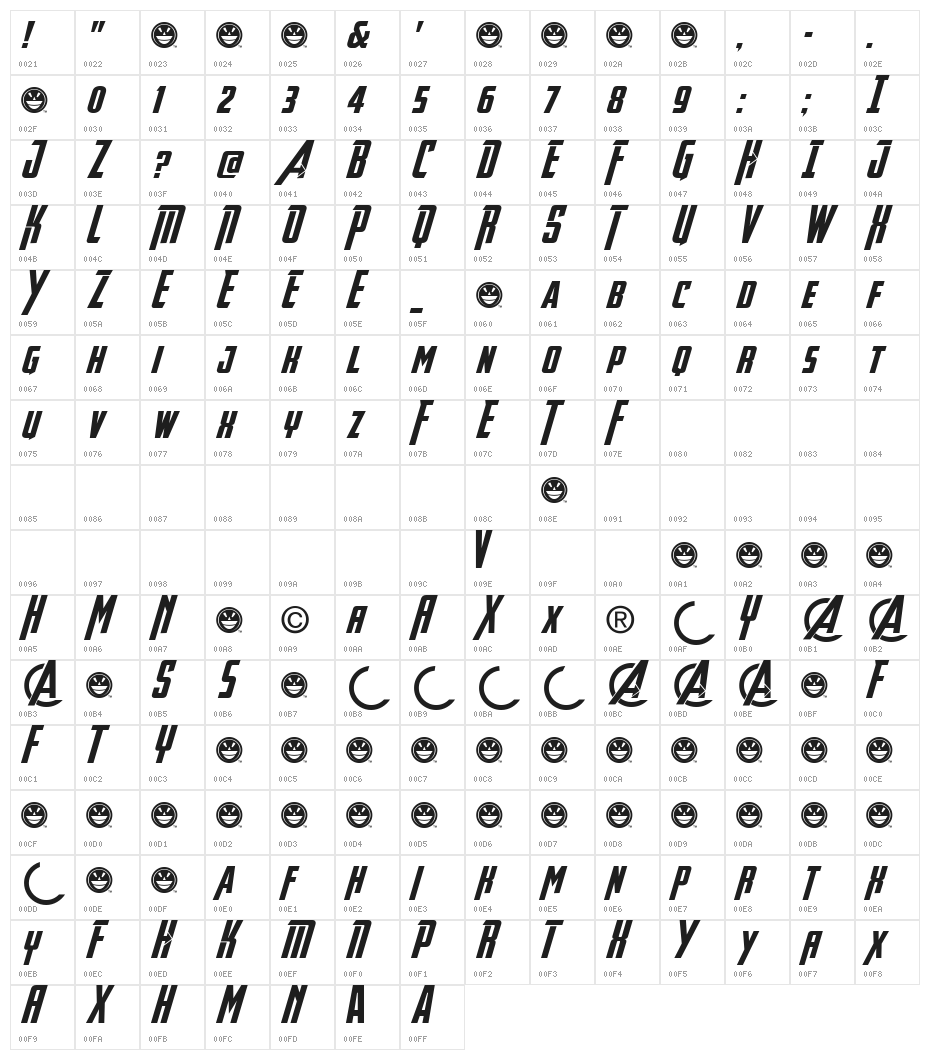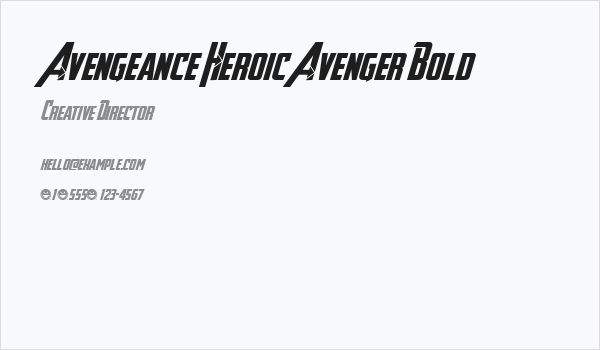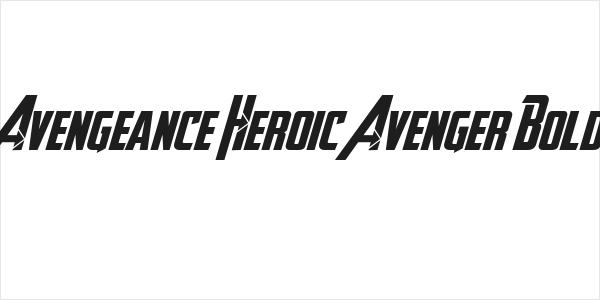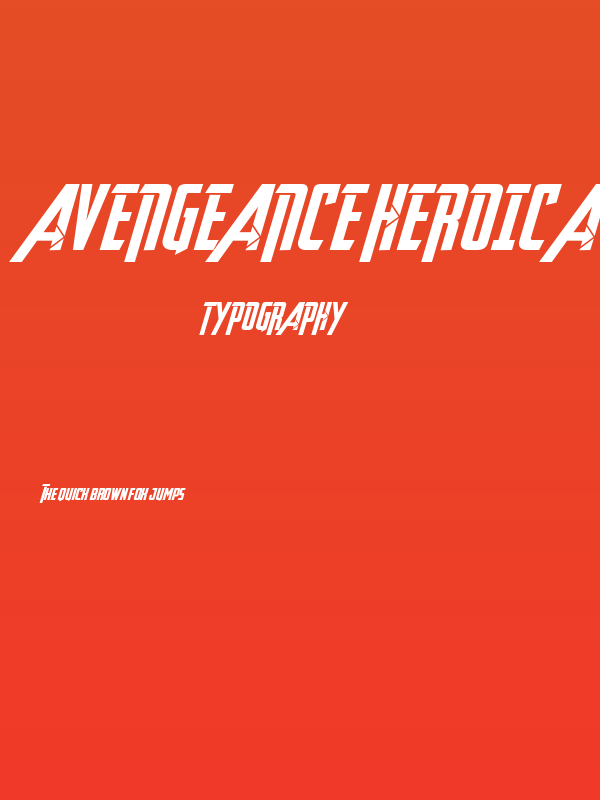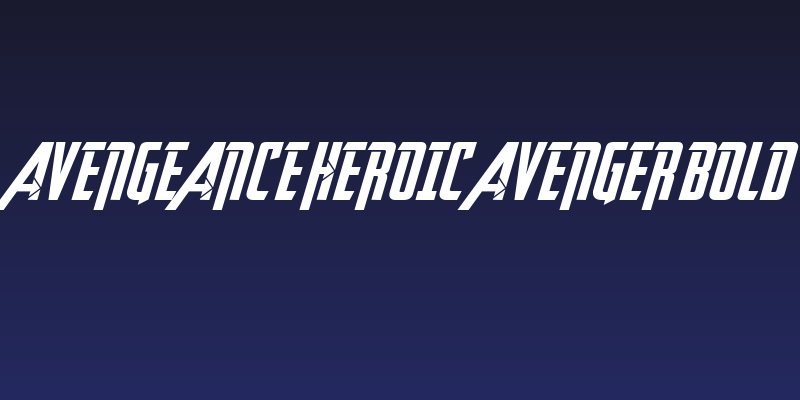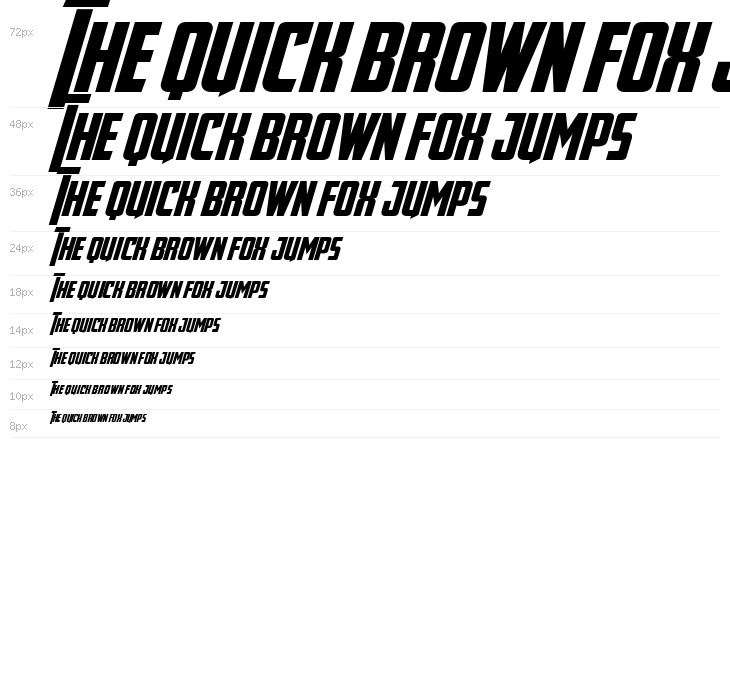
Avengeance Heroic Avenger Bold Font
Avengeance Heroic Avenger Bold Description
This font features a bold and dynamic style with a strong, angular design. The uppercase letters are particularly striking, with sharp edges and a slightly italicized slant that conveys a sense of motion and power. The lowercase letters maintain the same boldness, ensuring consistency across text. Numbers are equally robust, making them stand out prominently. Special characters are included, adding versatility to the font's application. The overall appearance is modern and impactful, suitable for projects that require a commanding presence.
| Proposed Projects | Ideal for superhero-themed designs, movie posters, video game titles, and branding that requires a strong, heroic presence. |